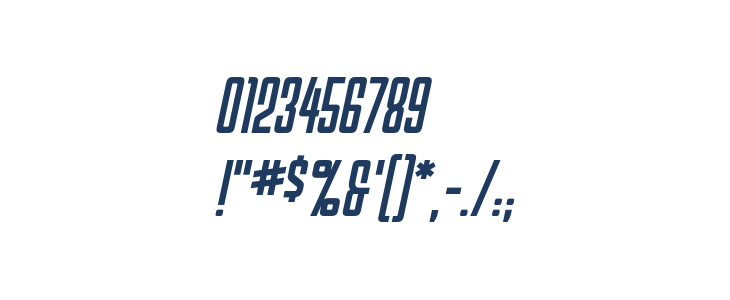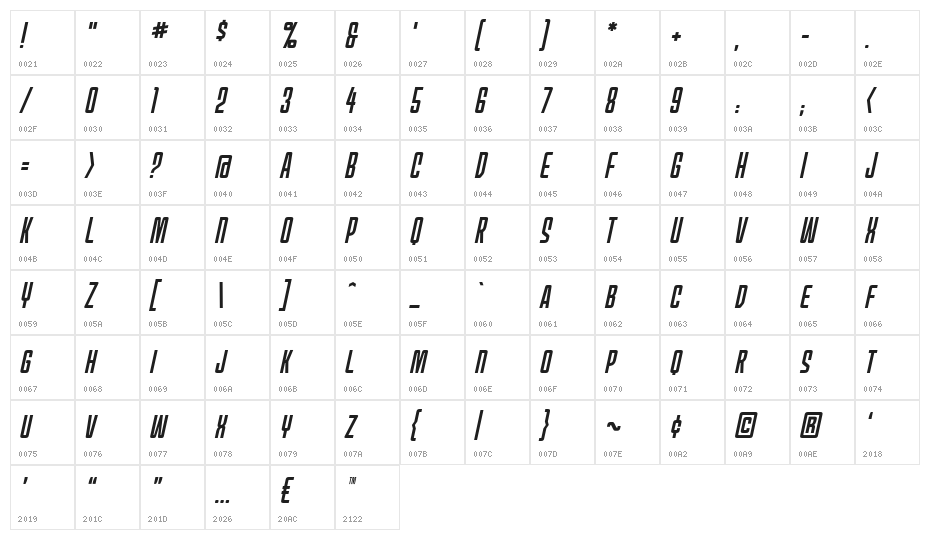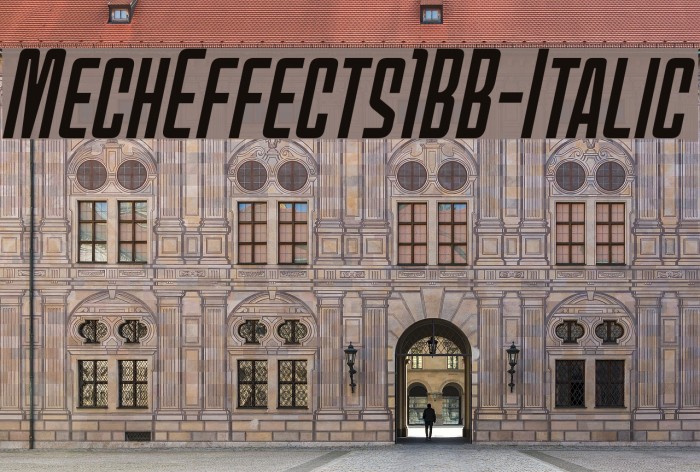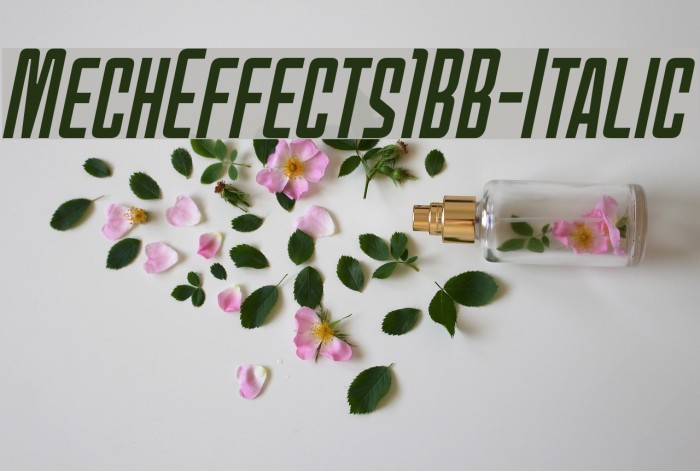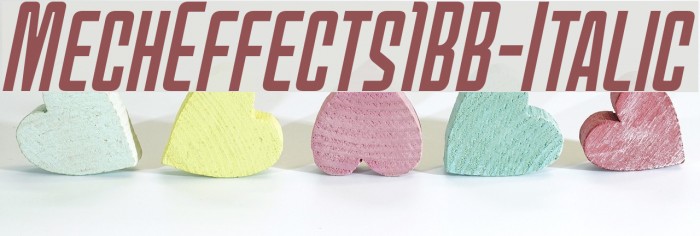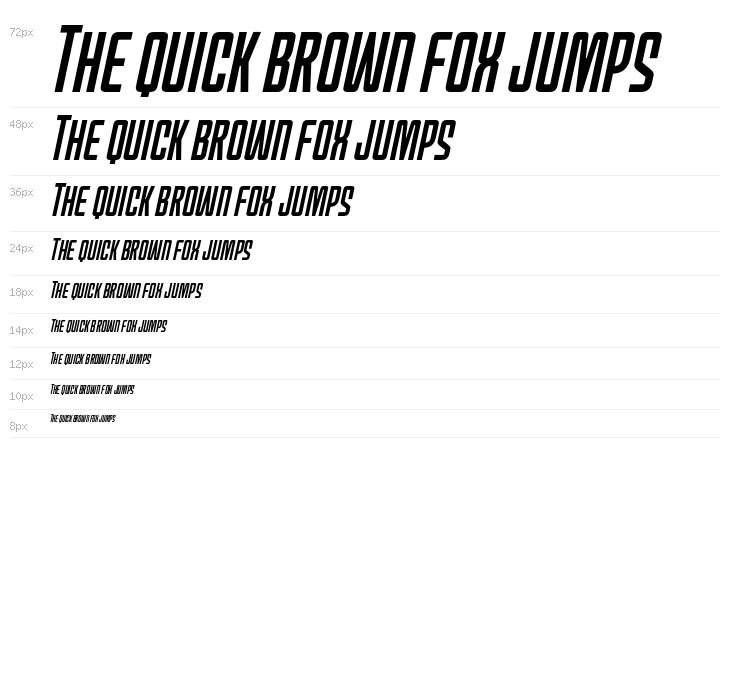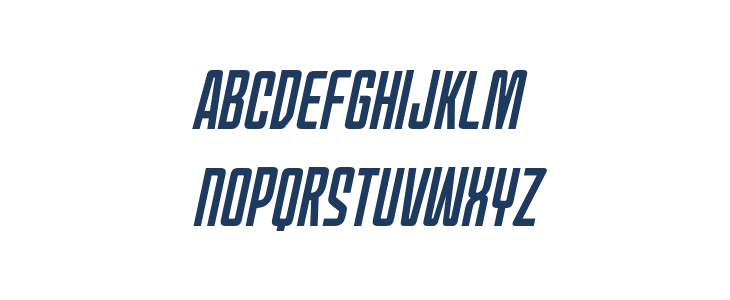
MechEffects1BB-Italic Font
MechEffects1BB-Italic Description
This font exhibits a dynamic and futuristic style, characterized by its italicized, forward-leaning stance that suggests motion and speed. The letters are bold and condensed, with a uniform stroke width that maintains a consistent visual weight throughout. The angular design of the characters gives it a mechanical and modern feel, making it suitable for projects that require a tech-savvy or industrial aesthetic. The numerals and special characters follow the same design principles, ensuring a cohesive look across all elements.
| Proposed Projects | Ideal for use in technology branding, automotive advertisements, video game titles, and sports team logos. |